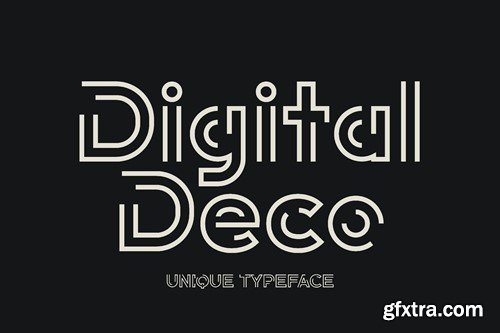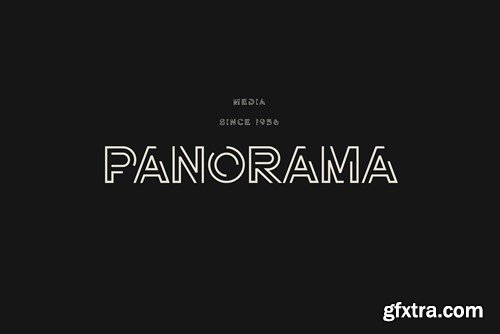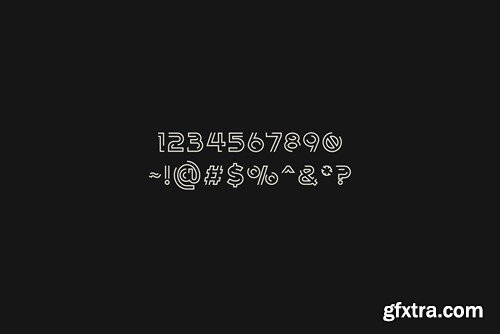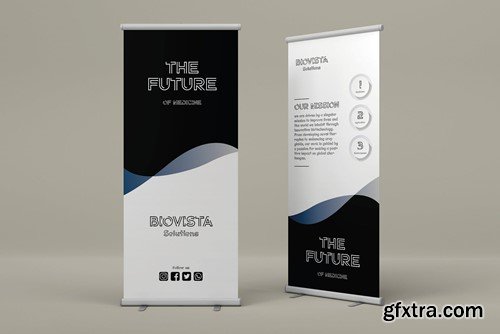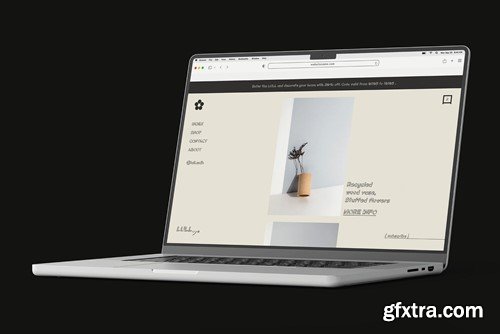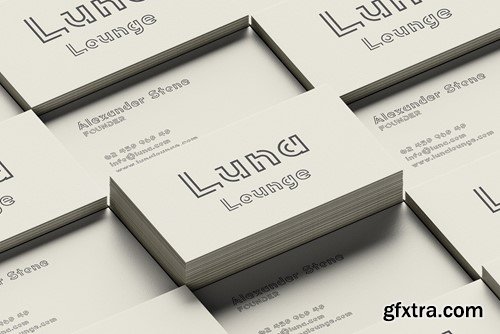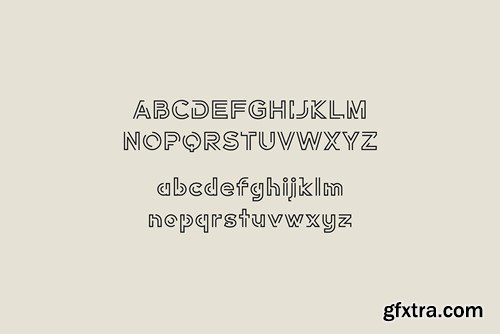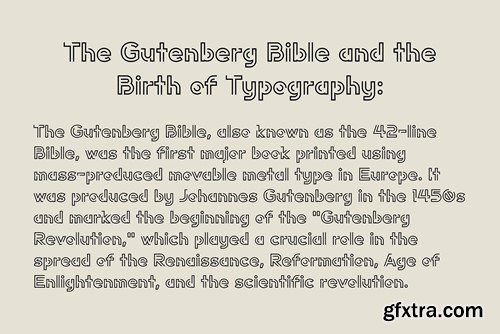
Digital Deco is an innovative typeface that seamlessly blends the opulent and geometric aesthetics of the 1920s Art Deco movement with the sleek, modern sensibilities of the digital age. This typeface stands out for its masterful use of negative space, which introduces a contemporary twist to the classic, symmetrical patterns characteristic of Art Deco. Each letter in the "Digital Deco" font is crafted with precision, featuring clean lines and sharp angles that evoke the glamorous and forward-thinking spirit of the roaring twenties, yet with a distinctly 21st-century flair. Perfect for creating logos and branding materials, Digital Deco exudes a sense of sophistication and elegance, while its unique negative space elements add an intriguing visual complexity. This makes it particularly effective for businesses looking to combine a vintage charm with a modern, cutting-edge appearance. The font's versatile nature allows it to be used in a wide range of applications, from digital media to print, making it an essential tool for designers aiming to infuse their work with a timeless yet contemporary aesthetic. Digital Deco is more than just a typeface; it's a bridge between eras, capturing the essence of Art Deco's luxury and combining it with the minimalism and efficiency of modern design. What's Included : Accessible in the Adobe Illustrator, Adobe Photoshop, Corel Draw. PUA Encoded Characters - Fully accessible without additional design software. Image used : All photographs/pictures/vector used in the preview are not included, they are intended for illustration purpose only.